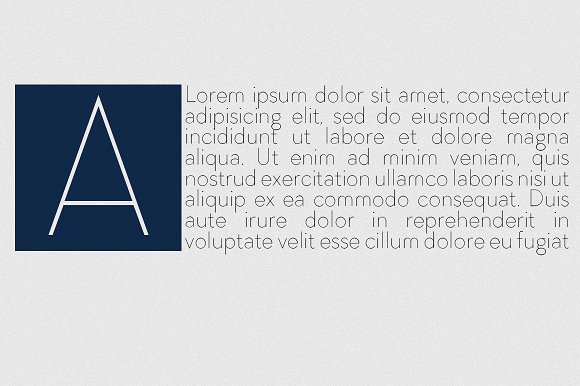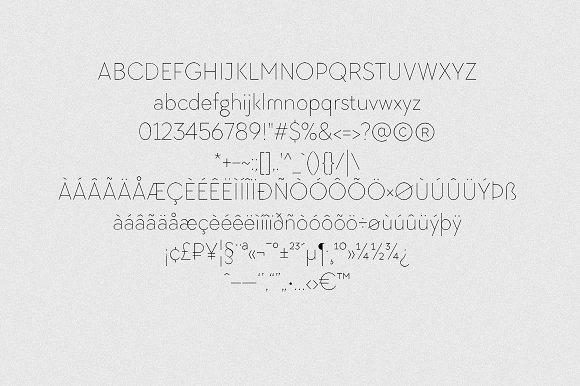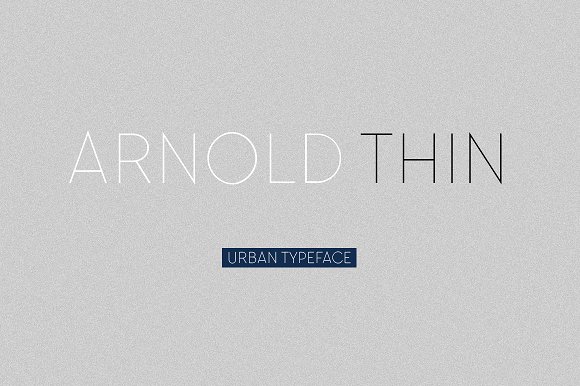
Arnold Thin
Arnold Thin Sans Serif Font
Minimalistic and classy sans serif typeface with more than 410 characters. Perfect for gorgeous logos, titles and typography design. Arnold Thin will pair beautifully with many fonts and complement every project you’re working on.